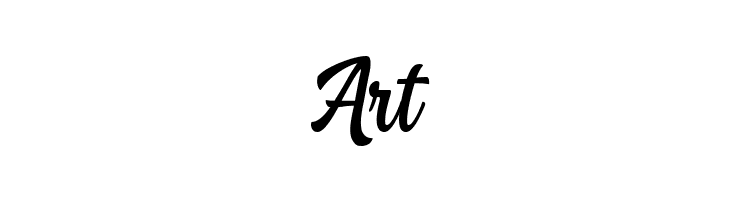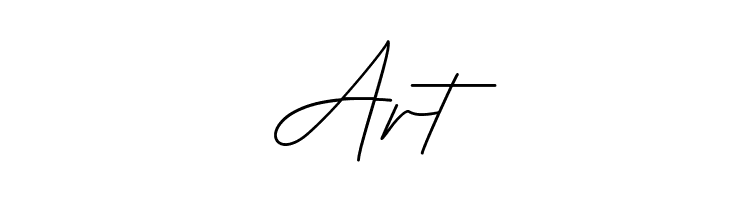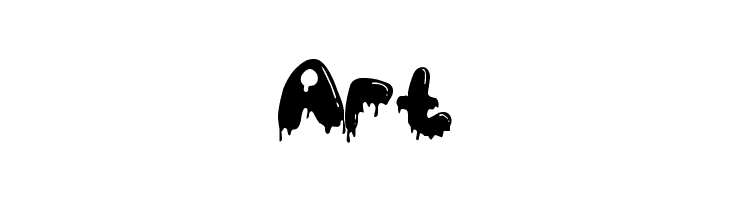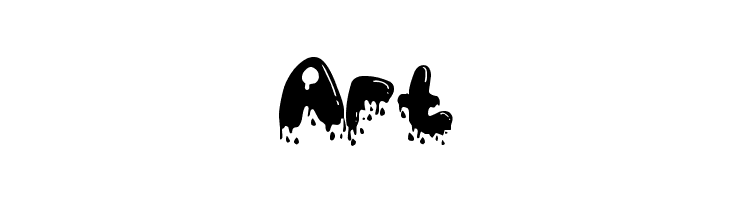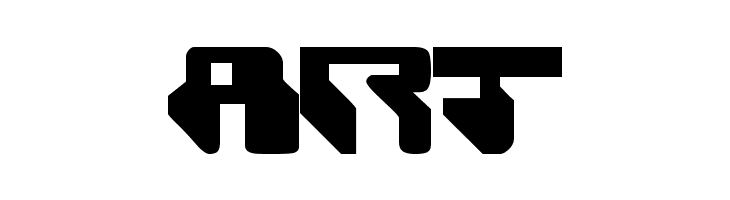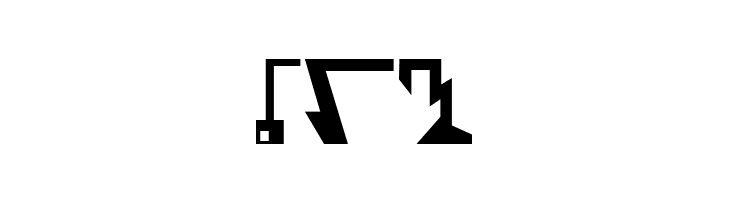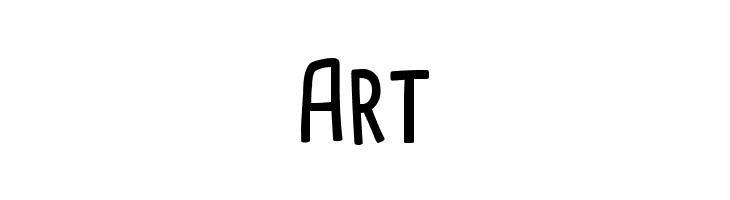
A bold, brush-style font with an expressive and dynamic appearance.
A decorative font with tall, slender characters and a geometric, vintage-modern style.
A modern, elongated font with a sleek and artistic design.
A bold, italic font with a dynamic slant and strong presence.
A playful, handwritten-style font with bold, rounded characters and medium contrast.
A bold, modern font with thick, uniform strokes and high legibility.
A bold, hand-painted style font with a distressed, artistic texture.
A geometric, angular font with a modern, futuristic design.
A geometric, hexagonal-themed font with a modern and futuristic style.
A graceful and fluid script font with a natural handwritten style.
A bold, graffiti-inspired font with a playful, rebellious edge.
A playful, cursive-inspired font with elegant curves and dynamic strokes.
A playful, handwritten font with bold, dynamic characters and a whimsical touch.
A playful, informal handwritten font with dynamic strokes and a whimsical appearance.
An elegant script font with flowing, cursive characters and medium contrast.
Playful handwritten font with rounded edges.
A bold, elegant script font with flowing, interconnected characters.
A playful, handwritten font with rounded, irregular characters.
A playful, handwritten cursive font with smooth, flowing curves.
A bold, angular font with a geometric and futuristic style.
A bold, geometric font with sharp angles and a strong, modern presence.
A playful and whimsical handwritten font with artistic flair.
A bold, modern sans-serif font with clean lines and geometric shapes.
A rough, hand-drawn font with an artistic, graffiti-like style.
A bold, geometric font with sharp angles and high contrast, perfect for impactful designs.
A bold, angular font with a modern and geometric style.
A whimsical, hand-drawn font with unique, playful letterforms and decorative elements.
A modern sans-serif font with geometric shapes and uniform strokes.
A modern, rounded typeface with clean lines and balanced spacing.
A modern, rounded font with clean lines and a friendly appearance.